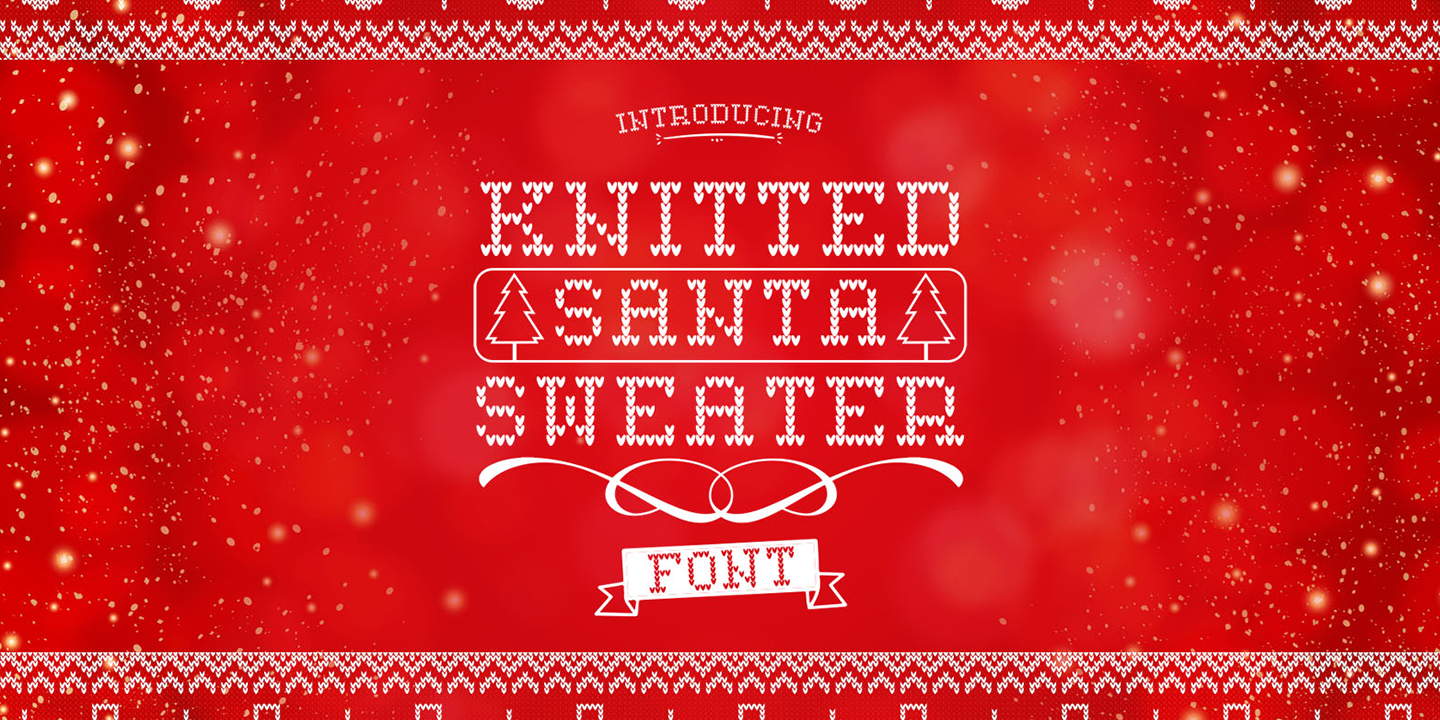
Knitted Santa Sweater Font is perfect for holiday greeting cards, Christmas party invitations, cozy winter product packaging, festive knitting pattern covers, seasonal craft store branding, Christmas market signage, holiday sweater designs, winter cabin decorations, Christmas cookie packaging, and heartwarming holiday marketing campaigns.
What makes Knitted Santa Sweater Font so exciting is its remarkable ability to capture the cozy warmth and playful charm of beloved Christmas traditions through letterforms that appear lovingly hand-knitted by grandmothers with centuries of holiday wisdom. This font embodies the essence of fireside gatherings and family celebrations, featuring textured characters that seem woven from the softest wool and decorated with traditional Nordic patterns. The comforting letter shapes create an atmosphere of nostalgic joy and homemade happiness, making every word feel like a warm hug on a snowy December evening.
The Knitted Santa Sweater Font family includes Regular, Bold, Light, Outline, and Pattern variations, along with special Christmas symbols and decorative knitting motifs. Each style maintains the font's distinctive handcrafted character while offering versatility for different holiday applications, from delicate greeting card messages to bold seasonal headlines that spread Christmas cheer throughout any space.
This delightful typeface brings authentic holiday craftsmanship to contemporary design projects. The Knitted Santa Sweater Font Free Download offers designers an exceptional resource for creating memorable seasonal communications that evoke the genuine warmth of traditional Christmas celebrations. Whether you're developing holiday retail branding, designing Christmas craft materials, or creating festive family event invitations, this font delivers unmatched coziness and nostalgic appeal.
The lovingly crafted letterforms in Knitted Santa Sweater Font feature intricate stitching patterns, cable-knit textures, and traditional Fair Isle decorations that mirror the careful attention to detail found in handmade holiday sweaters passed down through generations. Each character has been designed to feel authentically crafted while maintaining perfect readability across different applications. The font's distinctive personality makes it ideal for projects requiring genuine holiday tradition and artisanal quality.
Holiday marketing professionals appreciate how Knitted Santa Sweater Font instantly communicates comfort, tradition, and handmade quality while appealing to audiences seeking authentic Christmas experiences. The comprehensive character set includes festive symbols, Nordic patterns, winter motifs, and international language support, ensuring global compatibility while preserving its distinctive knitted identity. This makes it an invaluable resource for craft stores, winter clothing brands, holiday event planners, and any organization seeking typography that embodies the heartwarming spirit of traditional Christmas celebrations and the irreplaceable comfort of handmade holiday memories.